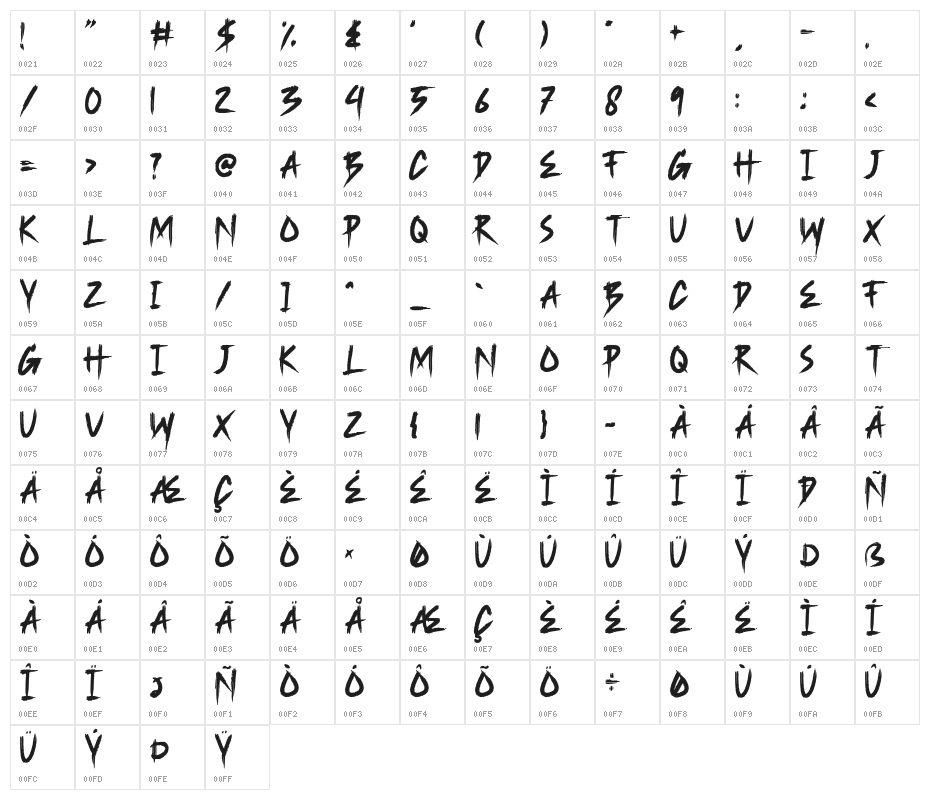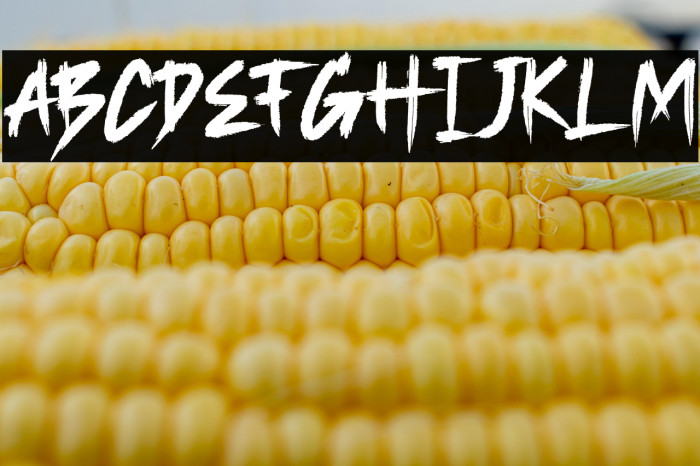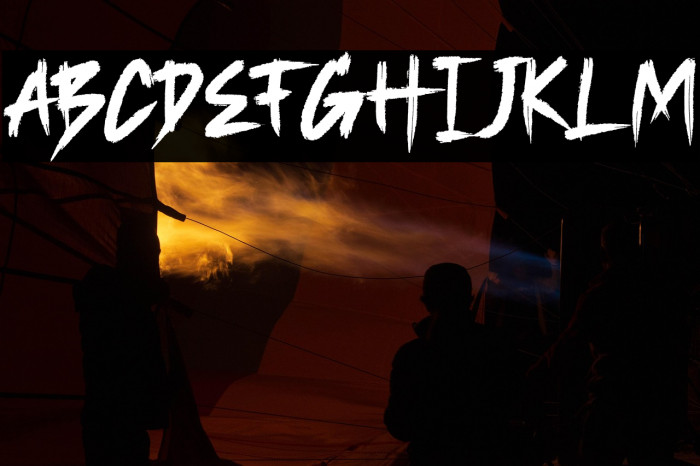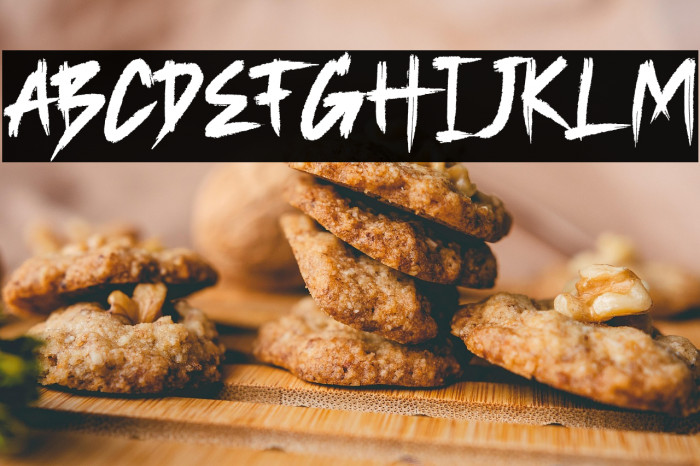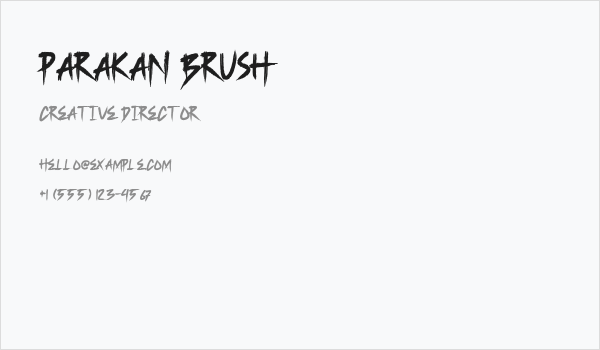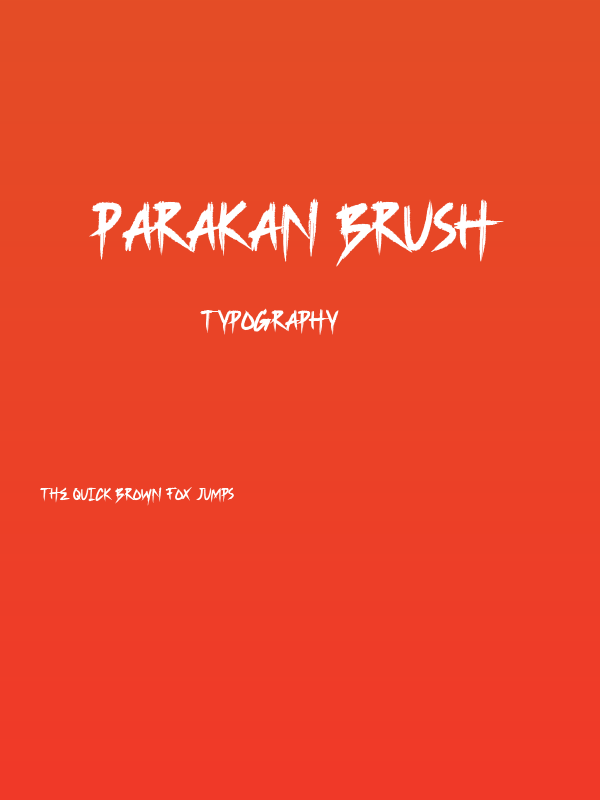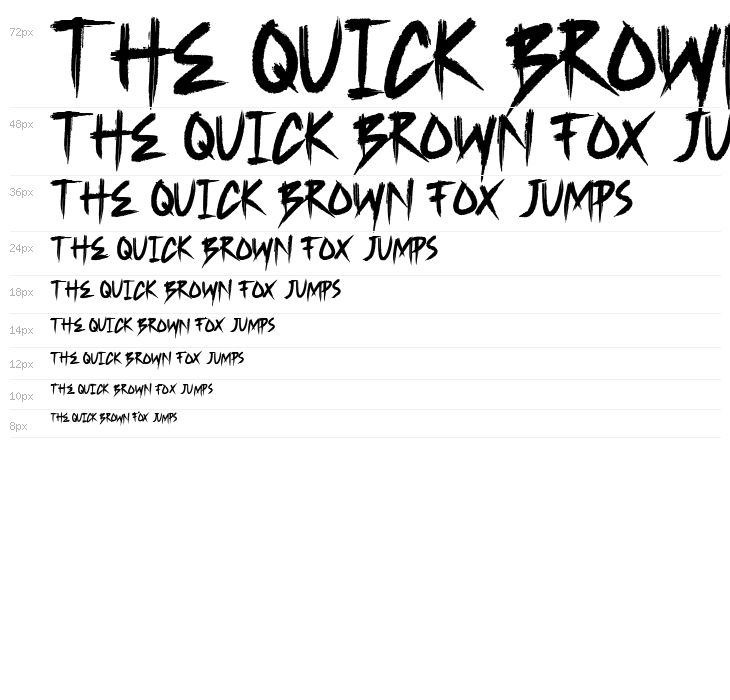
Parakan Brush Font
Parakan Brush Description
This font features a bold, energetic brush style that exudes a sense of movement and dynamism. The strokes are thick and uneven, giving it a raw, hand-painted appearance. The characters have a slightly jagged edge, adding to the overall rugged and artistic feel. This font is perfect for projects that require a bold statement or an artistic touch. The uppercase and lowercase letters maintain a consistent style, while the numbers and special characters complement the overall aesthetic. Its unique style makes it stand out, making it ideal for creative and expressive designs.
| Proposed Projects | Ideal for posters, album covers, branding, and any creative project needing a bold, artistic touch. |